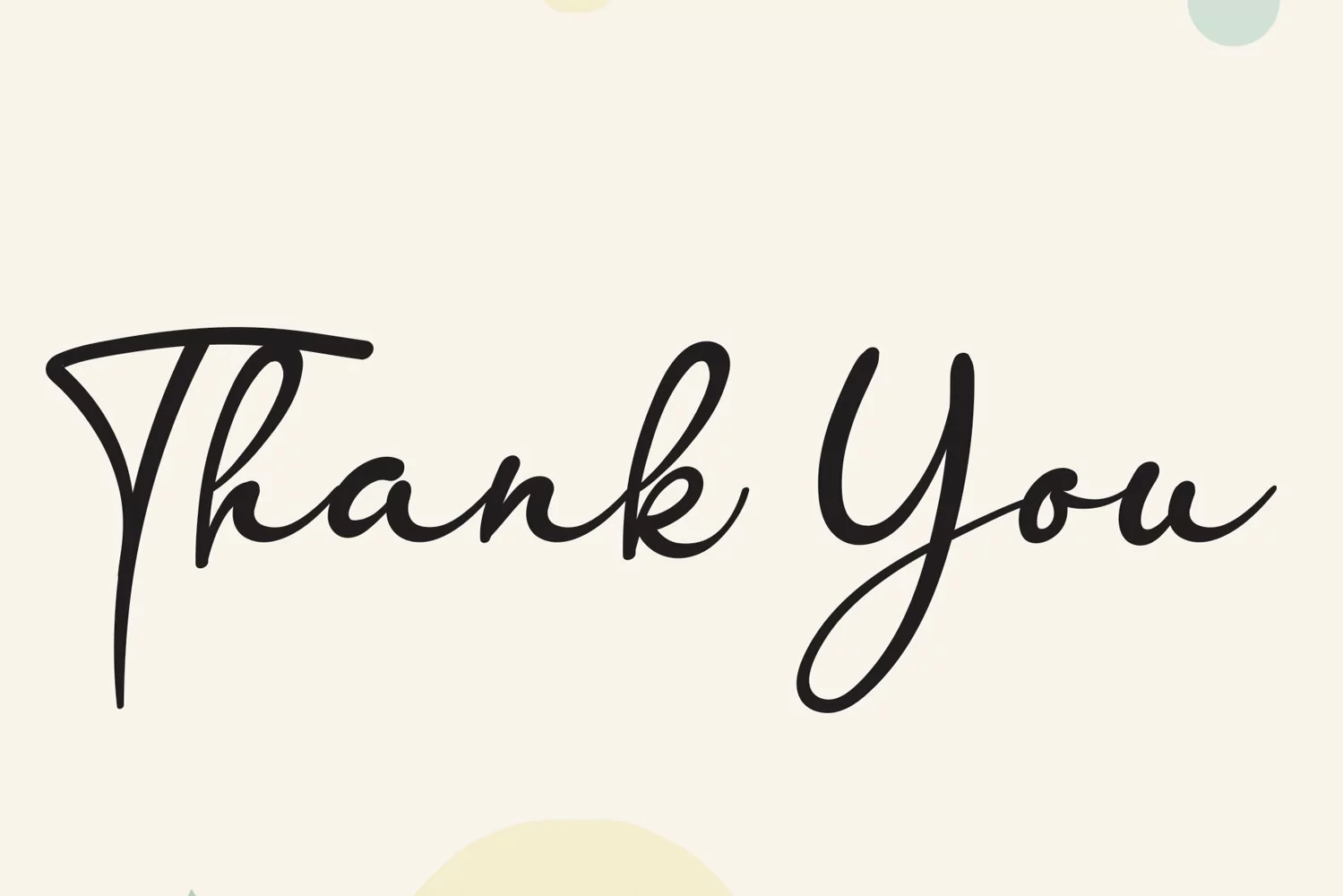
Romantic Hanimun
the latest style letters are perfect for wall displays, wedding invitations, social media post logos,
advertisements, product packaging, product designs, labels, photography, watermarks, invitations, stationery,
and any project that requires taste handwriting.